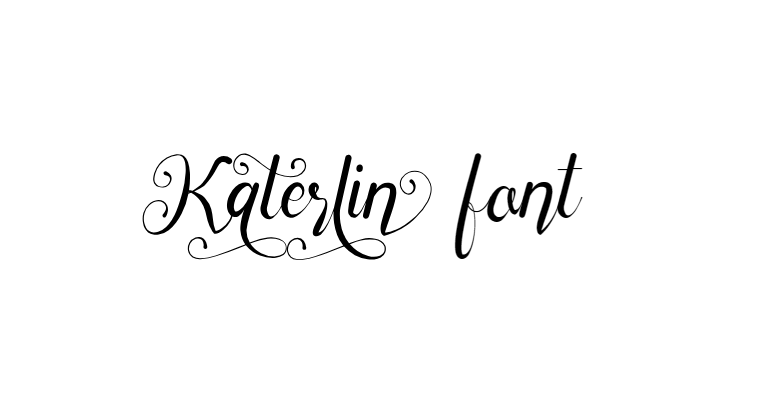
Katerlin
Katerlin is a calligraphy font made by Muksal Creative (2021). Its flowing, pen-made letters give names and short phrases a personal, polished look. You can download it for free and test it with your own words in the preview above.
- Designer: Muksal Creative
- Glyphs: 83
- Characters: A–Z, a–z and basic punctuation
What You Can Type With Katerlin
Katerlin has the full alphabet in upper and lowercase. There are no numbers, so you'll need a second font for dates, prices or phone numbers. Everyday marks like &, !, ? and @ are there too. There are no accented letters like é or ñ, so it's best kept to English text.
Ligatures and Smart Letters in Katerlin
Where Katerlin Works Best
Designers usually reach for fonts like Katerlin when they're making wedding invitations, certificates and elegant quotes. Script fonts read best in short bursts, so keep it to names, titles and one-line quotes. Skip all caps: script capitals are drawn to start a word, not to fill one.
Does Katerlin have ligatures?
Yes. Katerlin has ligatures that turn on by themselves in most design apps and browsers, so you don't need to do anything special.
Does Katerlin support accented letters?
No. Katerlin has no accented letters such as é, ñ or ü, so it's best for English text.
Does Katerlin have numbers?
No. Katerlin has no numbers, so pair it with another font for dates, prices or phone numbers.